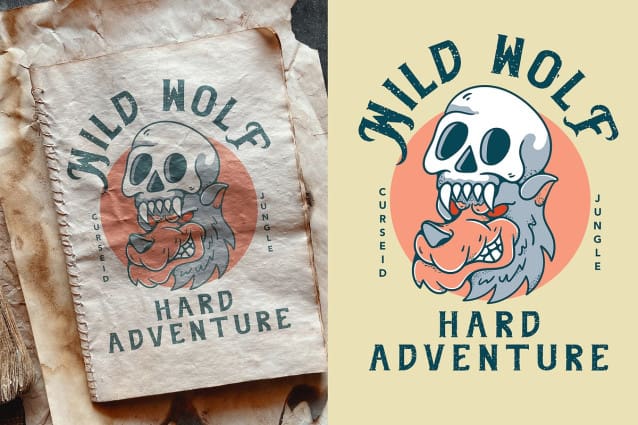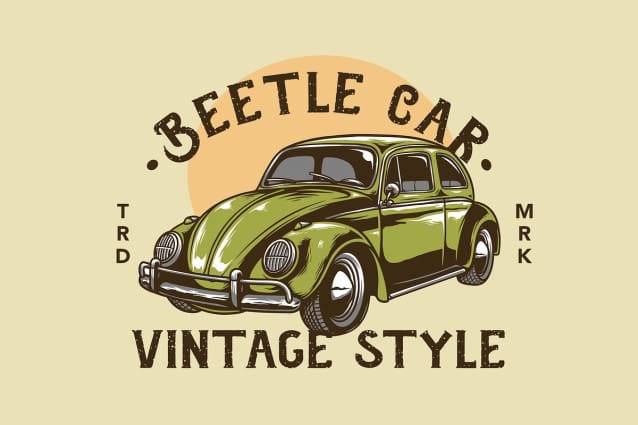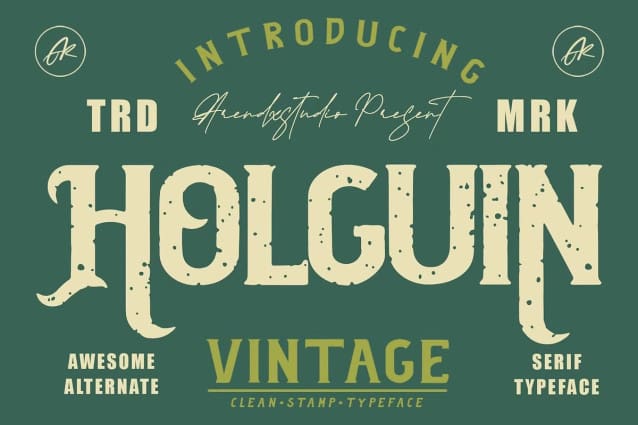
Holguin Stamp Font
Holguin Stamp Font – Vintage Typeface Font is a font with distinctive handwritten characters perfect for branding projects, logos, wedding designs, media posts, advertisements, product packaging, product designs, labels, photography, watermarks, invitations, stationery, and any project who need handwritten dishes.